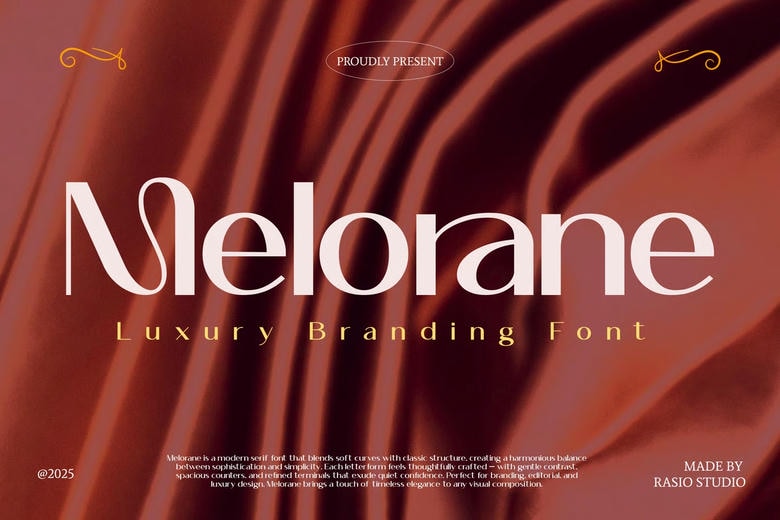
Melorane Font
Melorane is an elite sans serif font that combines old-fashioned elegance with the sleek design. The font is composed of smooth lines, high contrast thick and thin strokes, as well as unique ligatures, which exude a certain level of sophistication and confidence to the users. This font combines old-time measures with modern style, so it is a great solution to use this font to create high-end branding and editorial design.
Its combination of gentle curves and geometric rigor made Melorane the font of choice both in luxury packaging, cosmetic branding, fashion campaigns and stylish logos. And its versatility is apparent when working with both large display text and smaller body copy text where it can be used to bring a premium touch to any visual piece. Melorane is an ideal choice of type to use with serif typography, premium branding designs, and classic editorial visual artwork. It also works well in high end packaging, luxury skin care packaging, fashion magazine design and even elegant and stylish wedding invitations.
As well as being a perfect match to boutique logos and solution brand design, its exquisite design is also appropriate to premium product branding and signatures brand names. Melorane will work in beauty advertisements, jewellery campaigns, customised thank-you cards and stylish fashion lookbooks. The thin ligatures and modern sleekness make it a good choice of project that needs sophistication, confidence.
Melorane Luxury Sans Serif Font